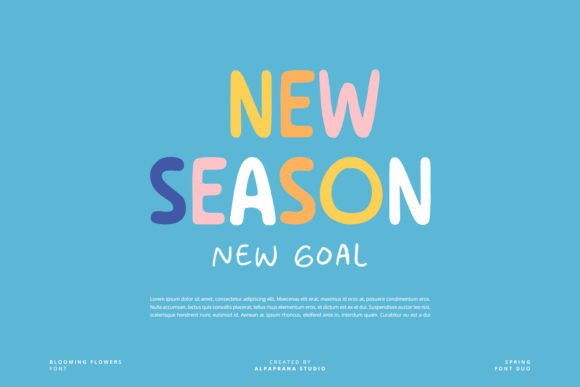
Blooming Flowers Font
Blooming Flowers is a font duo with authentic and cute feels. It will be perfectly used for Branding, Logo Design, Lettering, Logotype, Clothing, Posters, magazines, packaging, posters, shopping bags, t-shirts, book covers, photography, special events, and other design projects.